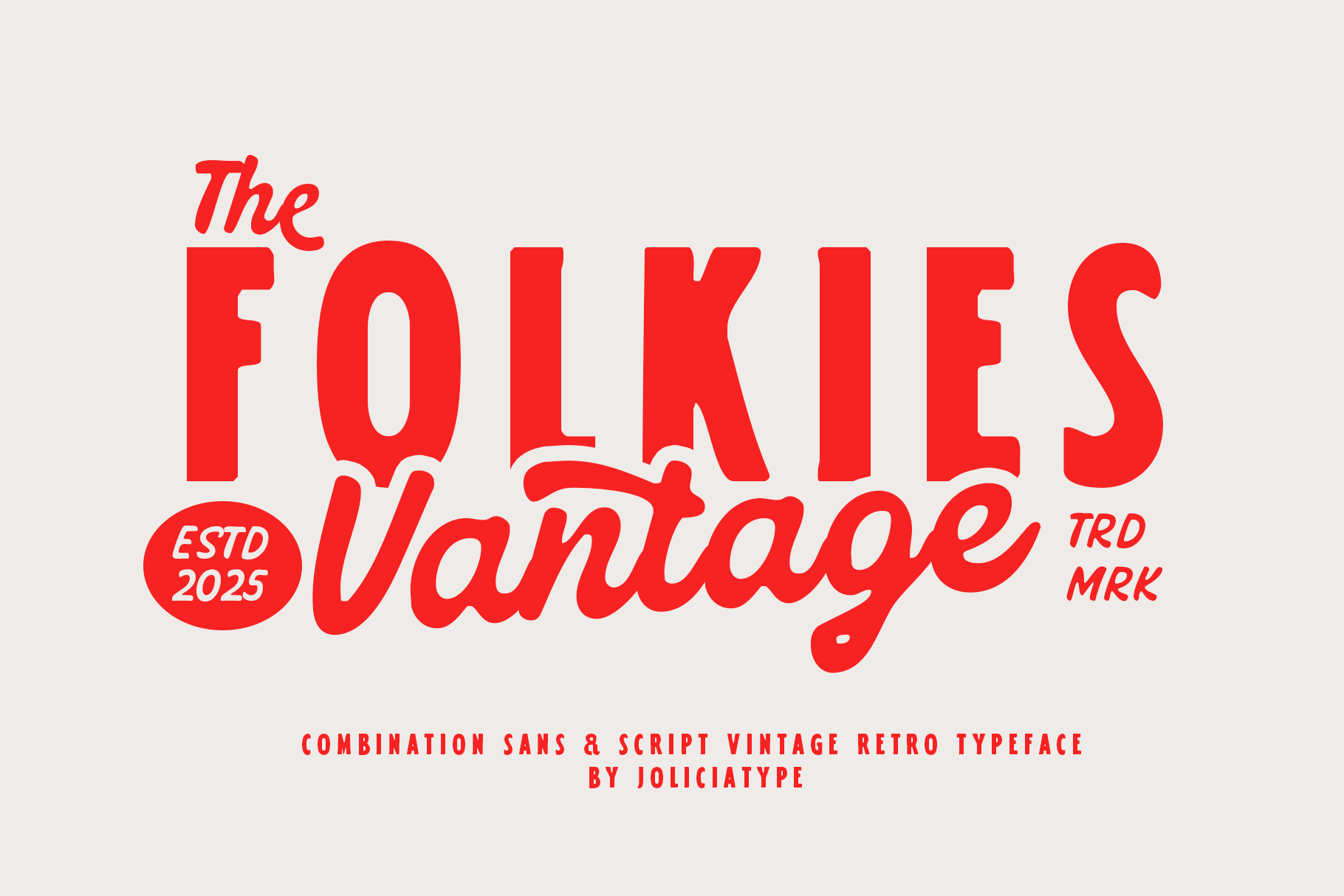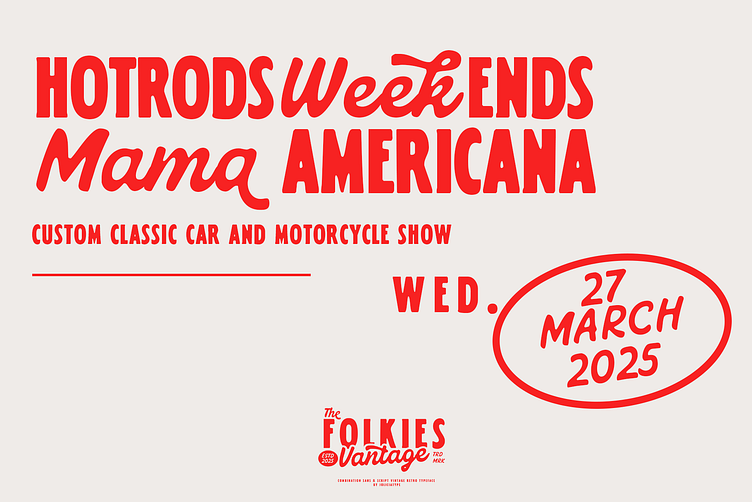
Folkies Vantage| Vintage Font Duo | Free To Try
Folkies Vantage is a bold and expressive vintage font duo that combines strong Sans Serif characters with handcrafted Script strokes — capturing the timeless charm of retro signage and handcrafted letterforms. This typeface is designed to transport your audience to a nostalgic era, where rough textures, faded ink, and artisanal imperfections were part of the visual soul.